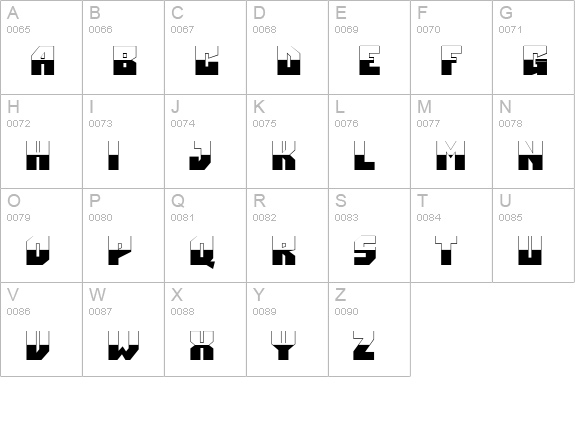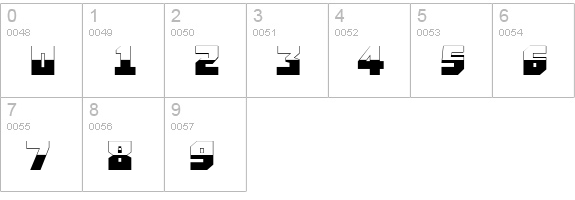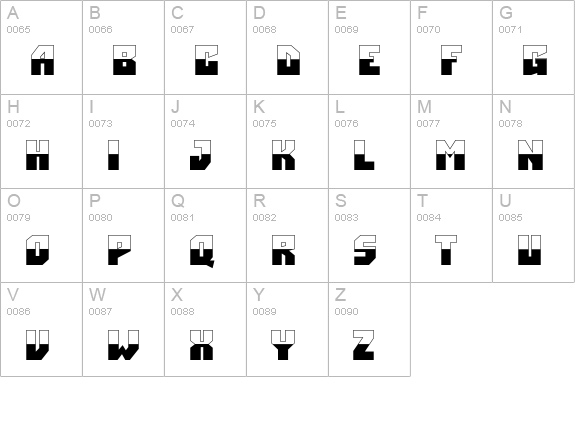
a_SimplerBUB&W Bold is a strong, high-contrast variant in the a_SimplerBUB&W typeface family \xE2\x80\x94 well suited to headlines, attention-grabbing titles, and strong calls-to-action.
The SimplerBUB&W Bold font is a stylish and modern typeface that adds a touch of sophistication to any design project. Its bold and clean lines make it perfect for creating eye-catching headlines, logos, and branding materials. This versatile font exudes confidence and elegance, making it a popular choice for both print and digital designs. And the best part? SimplerBUB&W Bold is available for free download at FontsMarket.com! This means you can easily access this high-quality font without any cost, making it a valuable addition to your font collection. Whether you're a designer, marketer, or content creator, SimplerBUB&W Bold is sure to elevate your projects and leave a lasting impression on your audience. Download it today and start creating stunning designs with ease!